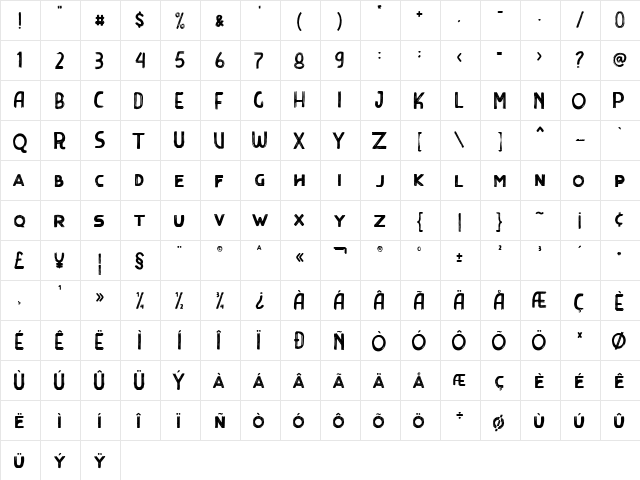
THEME Regular
| Foundry | Garisman Studio |
| Designer | Risman Ginarwan |
Design Context for THEME Typeface
THEME is a composed and adaptable typeface that performs quietly and consistently across a wide range of design contexts.